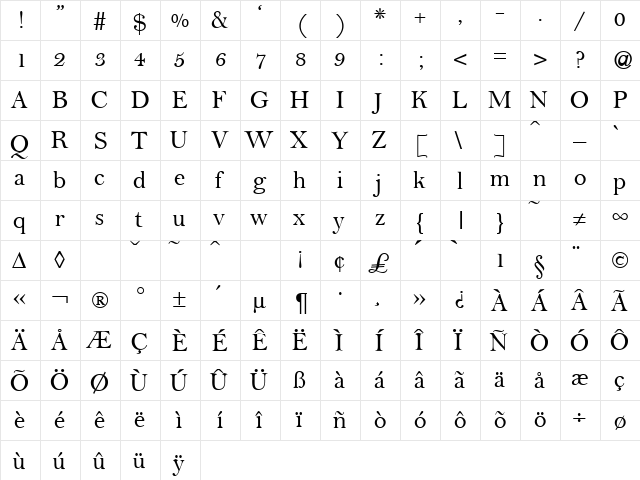
Belami Regular
Design Context for Belami Typeface
Belami offers clean, dependable letterforms without strong stylistic allegiance, making it a practical choice for designers who need flexibility.
Pro Tip: Pair Belami with a font of contrasting weight or personality to build a more expressive typographic hierarchy.